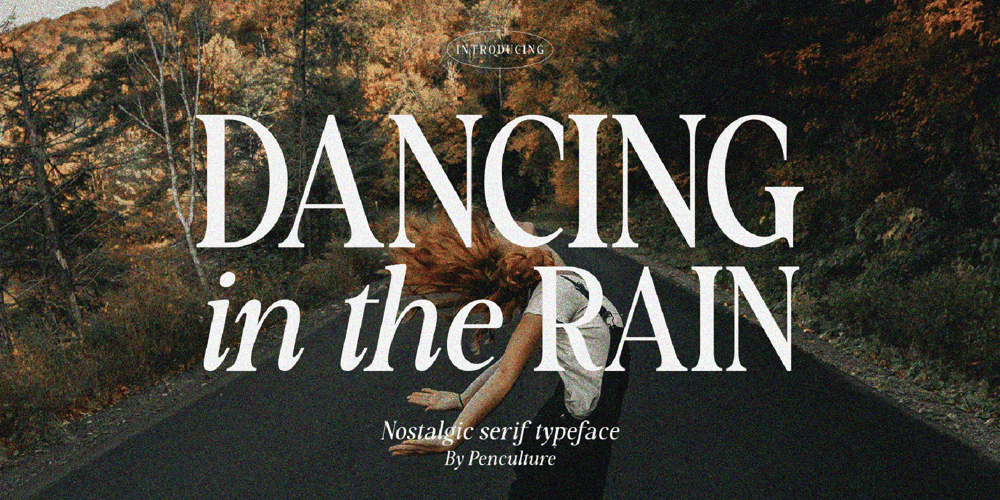
Dancing In The Rain Font Family was designed by Revo Farsiky and published by Pen Culture. Dancing In The Rain contains 2 styles and family package options. Proudly present “Dancing In The Rain”Dancing in the rain is a simply nostalgic font that will always remind us of the 80s and 90s. This font has a smooth curve in both the regular and italic versions.This font can be used for both headlines and body text. you can also apply it for various other needs such as fashion, skincare, and much more.This font is has full of uppercase and lowercase letter, number, punctuation. This font also has multilingual support and of course it is PUA Encoded.I really hope you enjoy it – please do let me know what you think, comments & likes are always hugely welcomed and appreciated. More importantly, please don’t hesitate to drop me a message if you have any issues or queries.Thank you